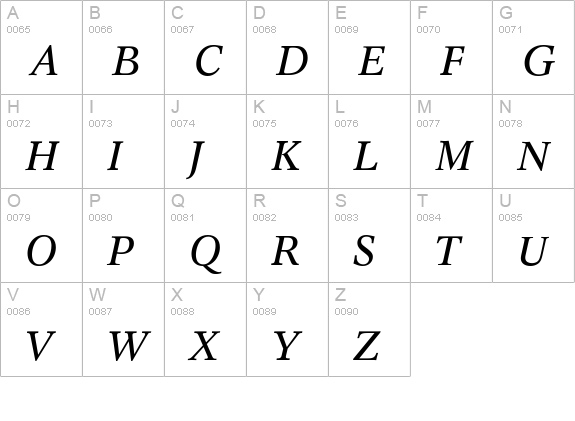
Concorde BE Italic with Oldstyle Figures Font Details
Concorde BE Italic with Oldstyle Figures is a distinctive, italic variant in the Concorde typeface family \xE2\x80\x94 well suited to design and typography projects.
Concorde BE Italic with Oldstyle Figures font is a stunning and elegant typeface that exudes sophistication and charm. Its sleek and stylish design makes it perfect for adding a touch of class to any project. The italicized letters flow gracefully, while the oldstyle figures bring a vintage touch to the overall look. This font is not only visually appealing but also highly versatile, making it suitable for a wide range of design projects, from elegant invitations to professional documents. Whether you're looking to create a timeless piece or simply want to elevate your design, Concorde BE Italic with Oldstyle Figures font is the perfect choice. Best of all, this exquisite font is available for free download at FontsMarket.com, allowing you to effortlessly add a touch of sophistication to your projects without breaking the bank. Don't miss out on the opportunity to enhance your designs with this beautiful and versatile font today!